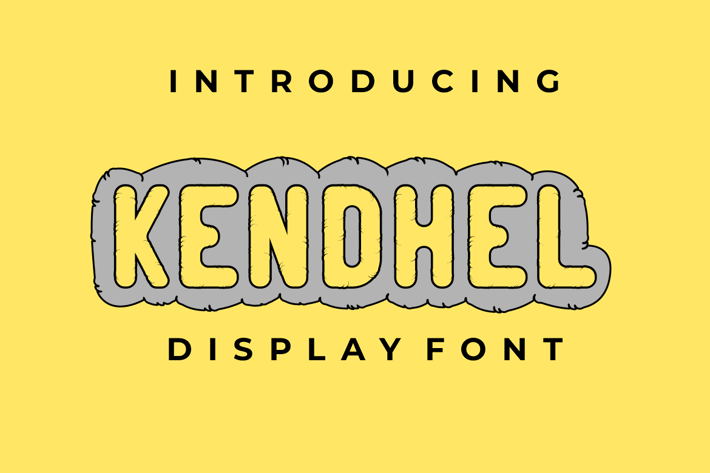
KENDHEL FONT
Introducing our new product KENDHEL FONT - Modern Font
KENDHEL FONT - Modern Font is a bold and authentic display font. The font is suitable for any branding project like logo, t-shirt printing, esport, and many more. outstanding in a wide range of contexts.